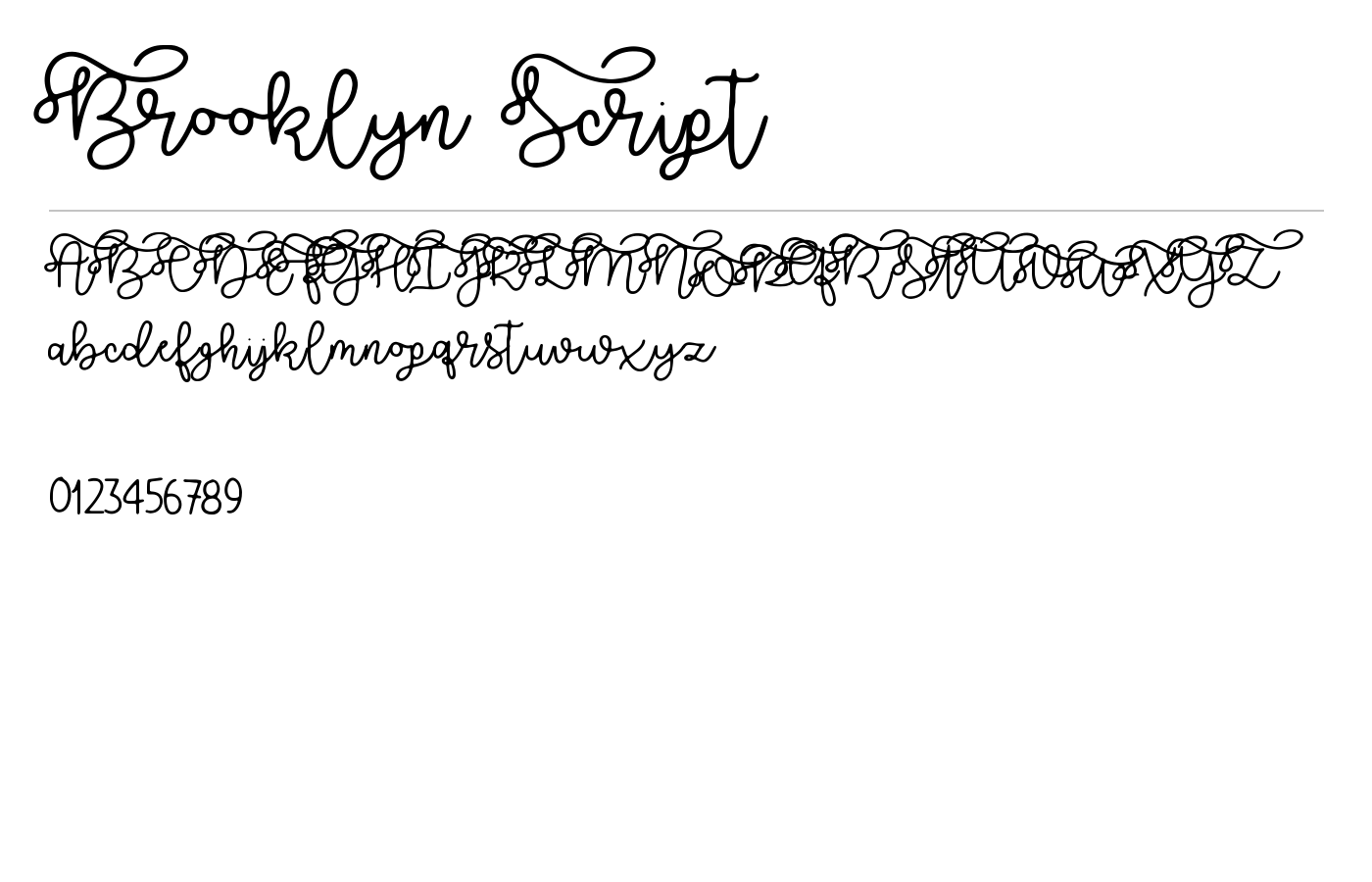
Brooklyn Script is an elegant and playful handwritten script font with delicate, flowing strokes and decorative swashes that add a romantic, vintage charm. Its light weight and narrow width make it perfect for stylish branding, invitations, and headlines where a personal, artistic touch is desired. This font works beautifully for projects needing a warm, sophisticated feel, such as weddings, fashion, and boutique packaging.
| Font family | Brooklyn Script Font |
| Designer | Shiro Studio 2016 |